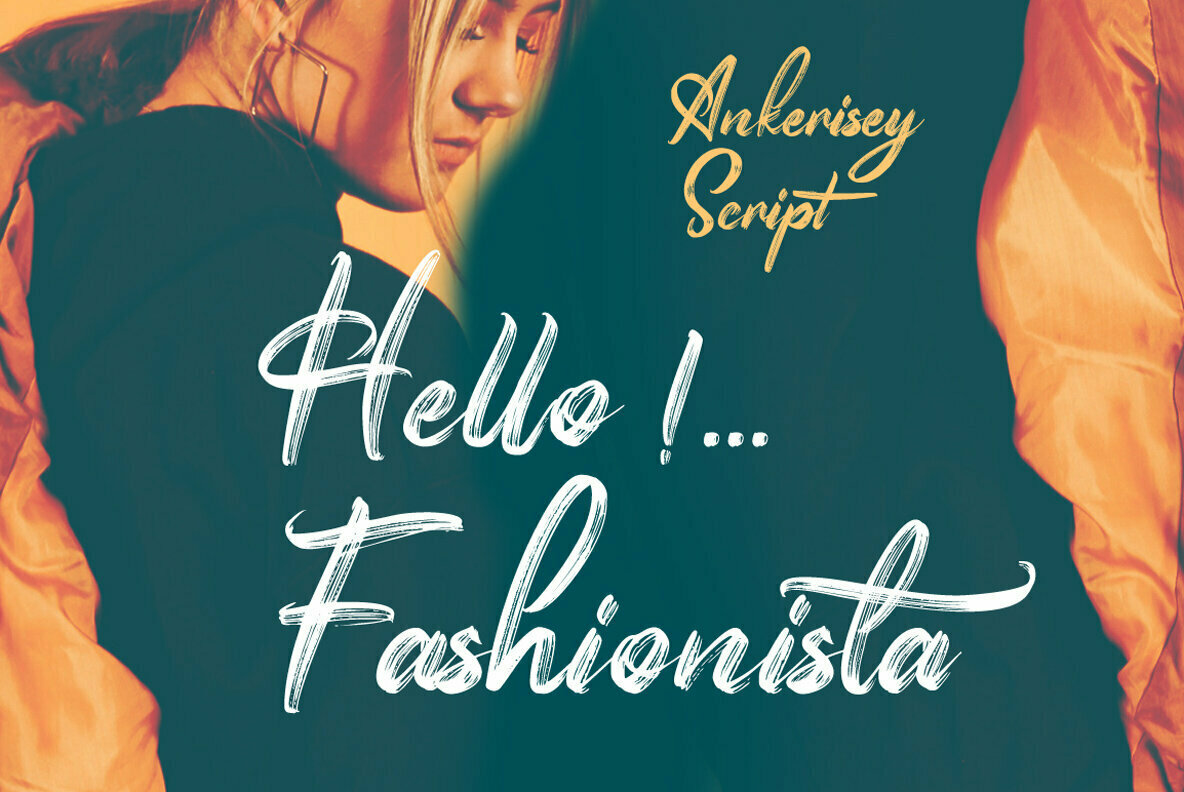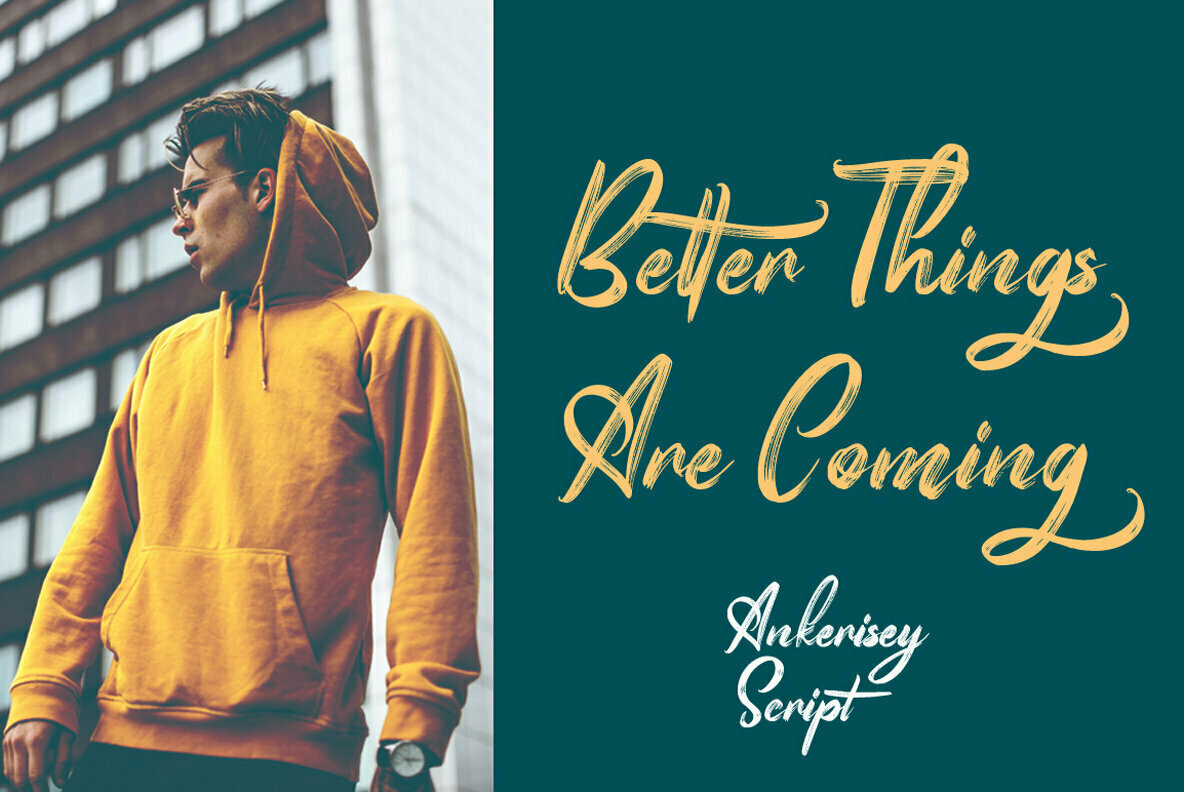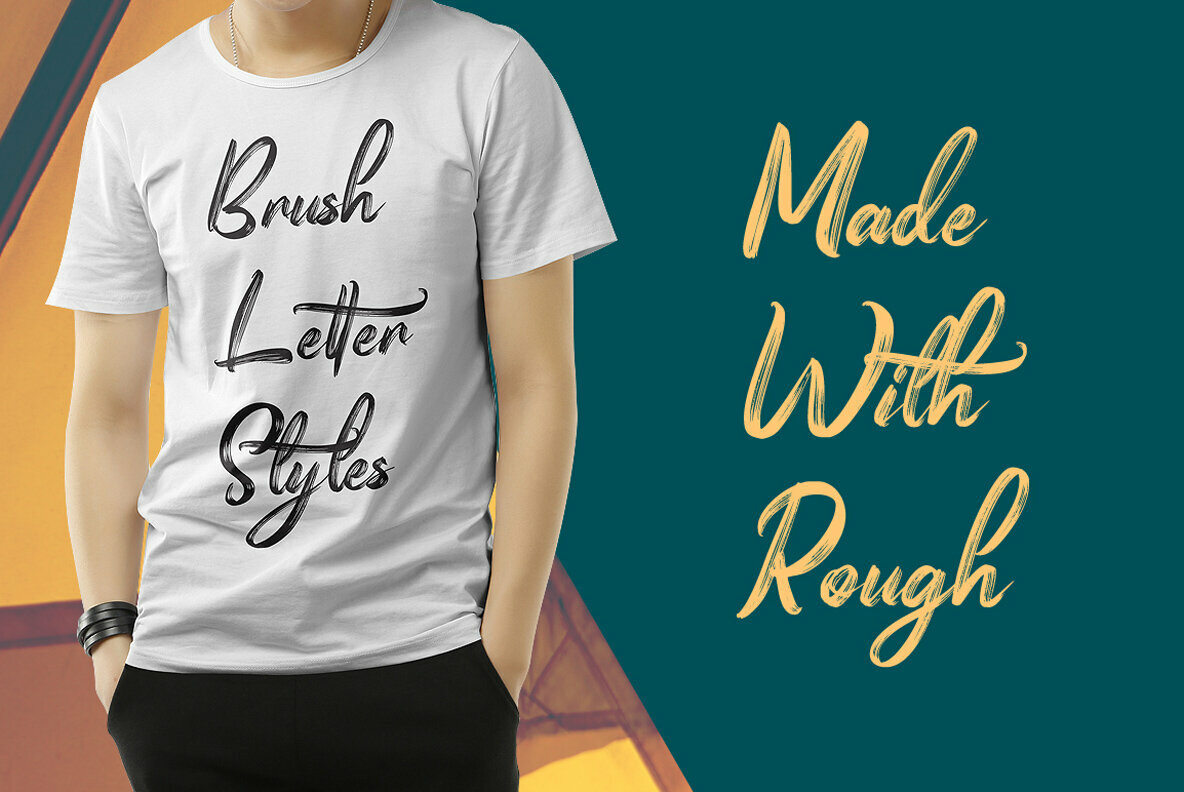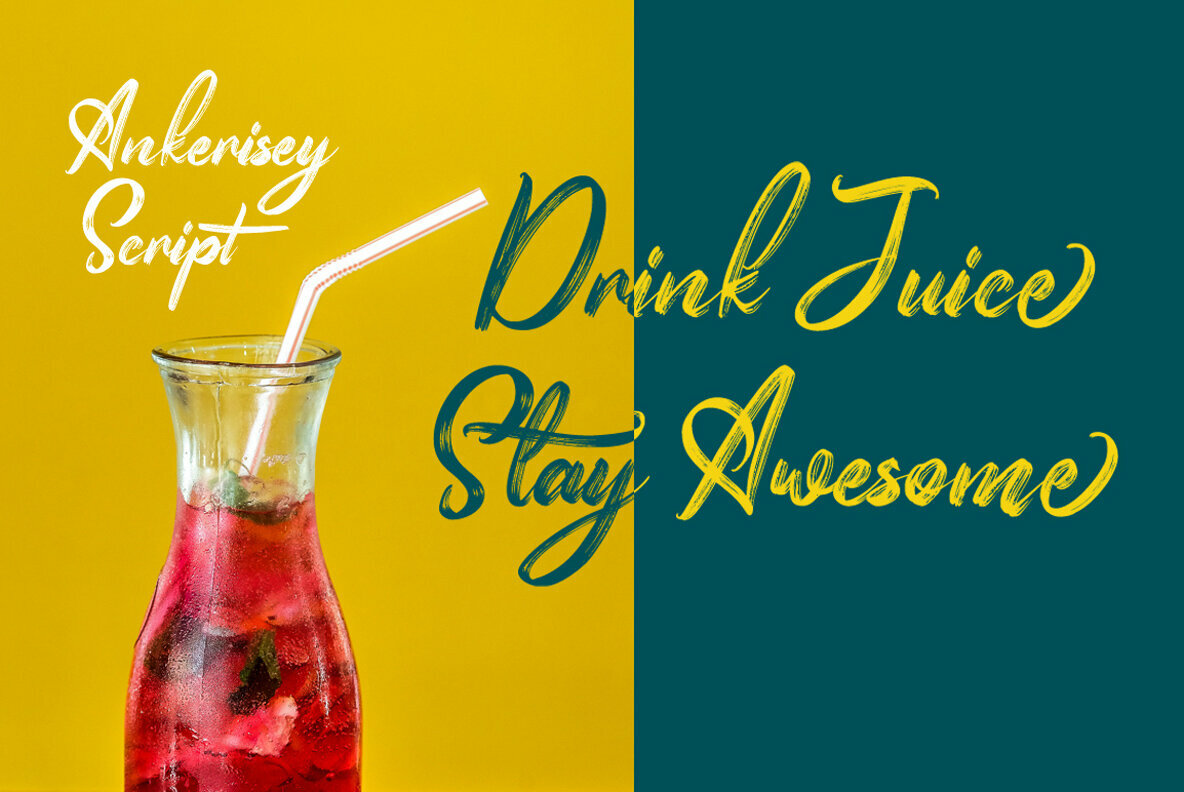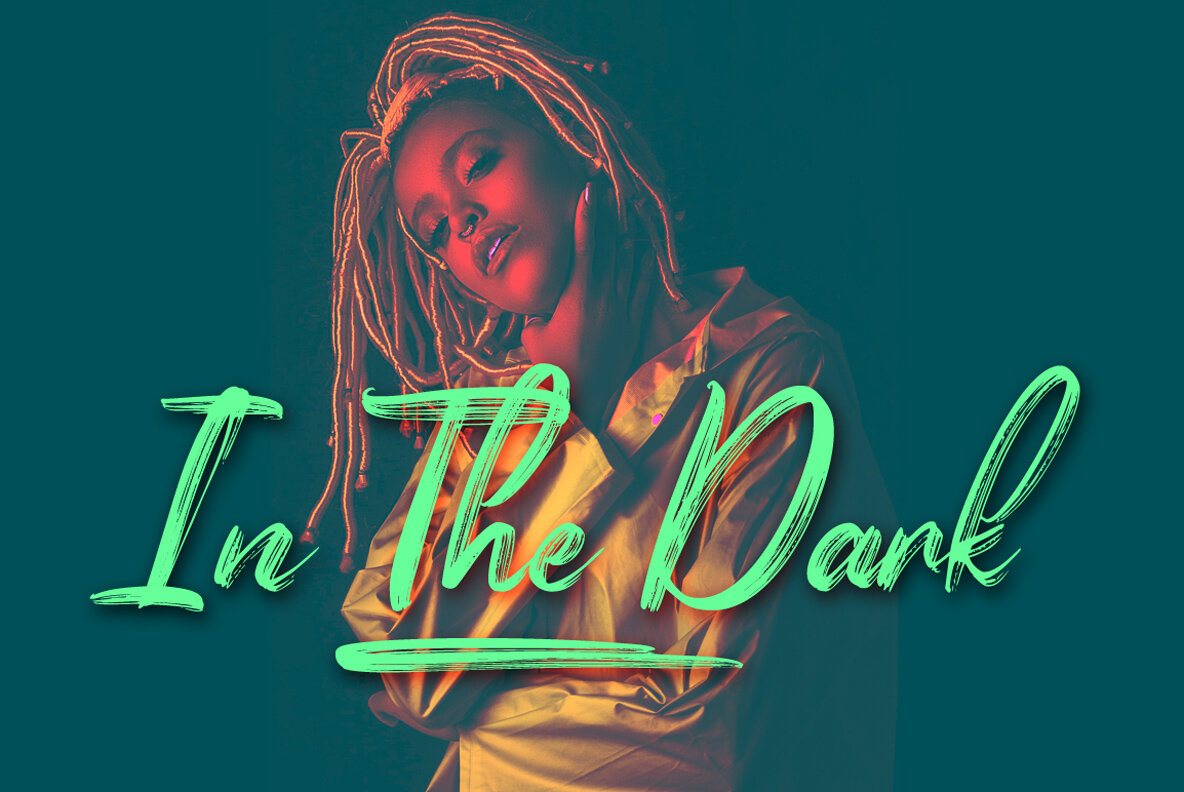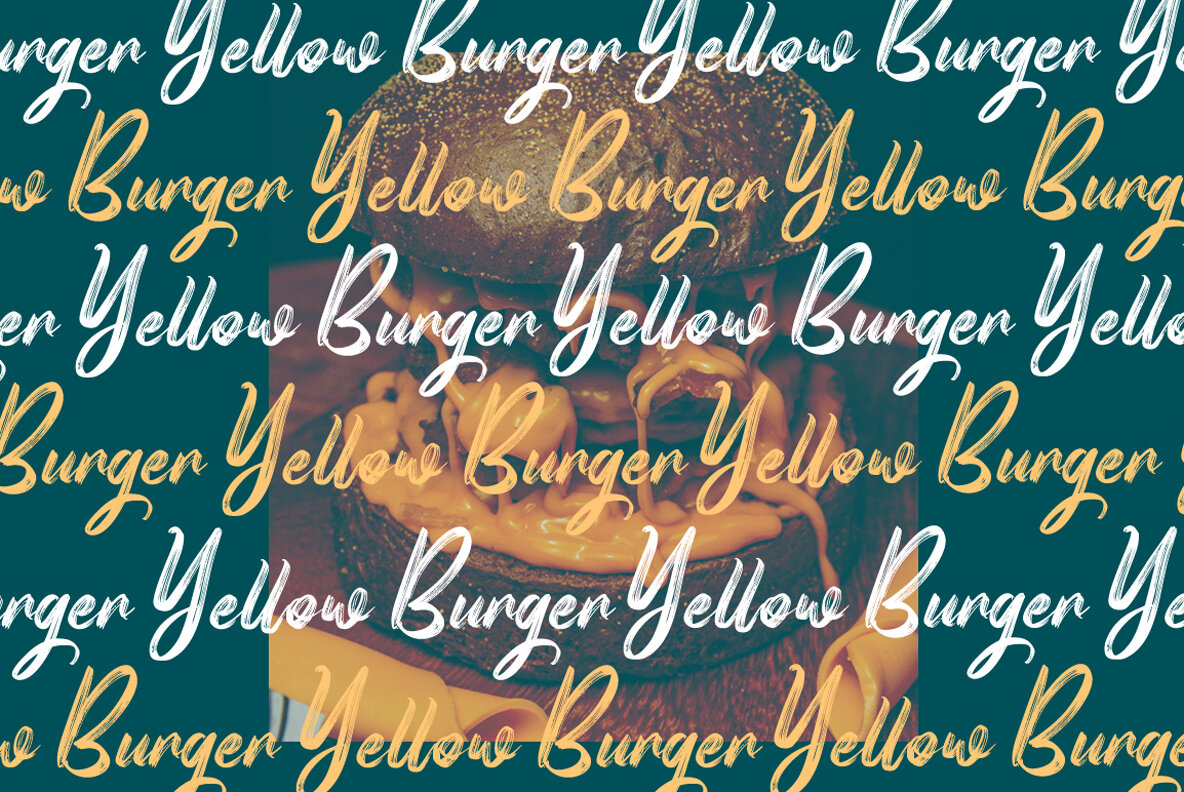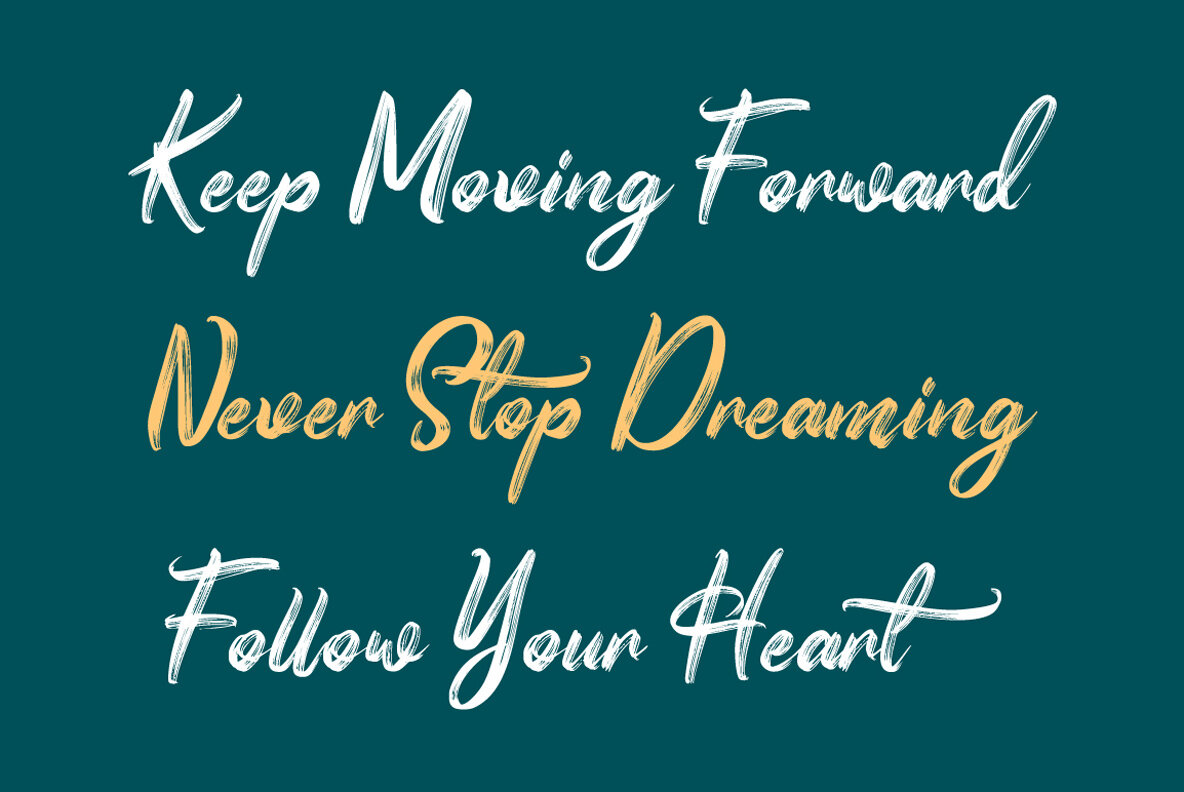
Ankerisey Font
Ankerisey
The Ankerisey script font introduces an expressive handlettering dry brush style that captivates with its organic charm. Perfect for creative endeavors such as event branding, t-shirt design, logos, and stickers, Ankerisey provides a distinct visual presence that enhances thematic work. Designed for versatility, its opentype features allow for customizable typographic elements that blend seamlessly into any design project.Ankerisey: Artistic Script with Handlettered Brushwork
Experiment with Ankerisey to unleash creativity in your next design venture with its unique stylistic elements and flexibility.